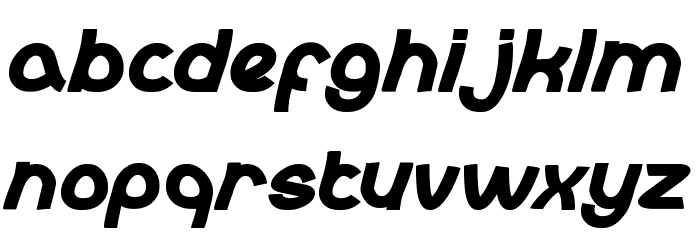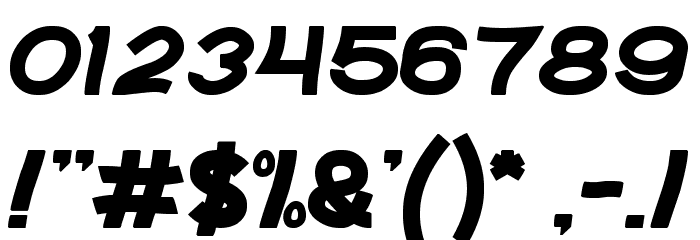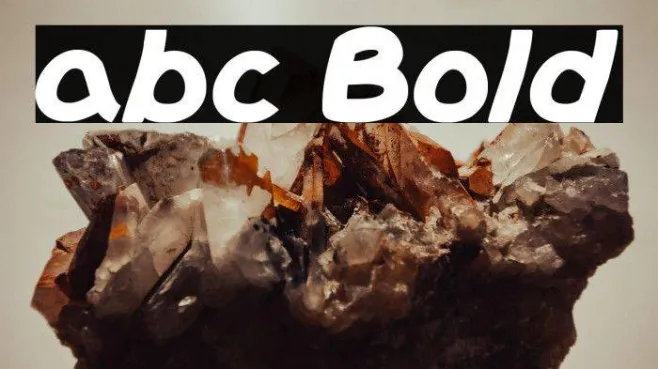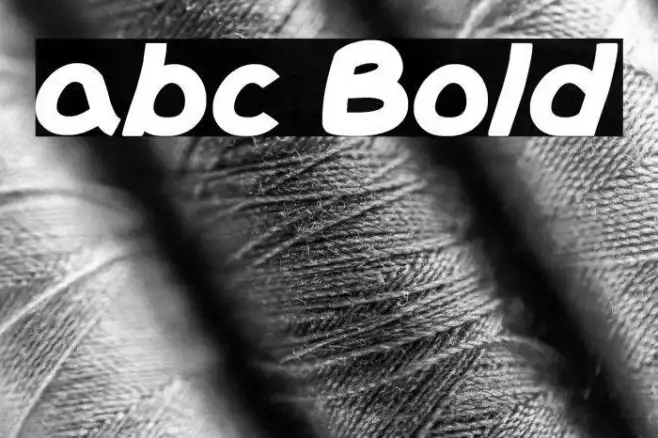
abc Bold Font
This bold, decorative font features a playful and dynamic style with a strong presence. The characters are rounded and slightly slanted, giving them a sense of motion and energy. The uppercase letters are bold and prominent, while the lowercase letters maintain a consistent flow. The numbers are equally bold, ensuring readability and impact. Special characters are designed to match the overall style, with a unique flair that complements the font's aesthetic. This font is ideal for projects that require a fun and engaging look, such as children's books, posters, or branding materials that aim to capture attention.
A bold, playful font with rounded, dynamic characters.
- Proposed Projects: Ideal for children's books, playful posters, and eye-catching branding materials.
- Overall Style: Playful, Dynamic